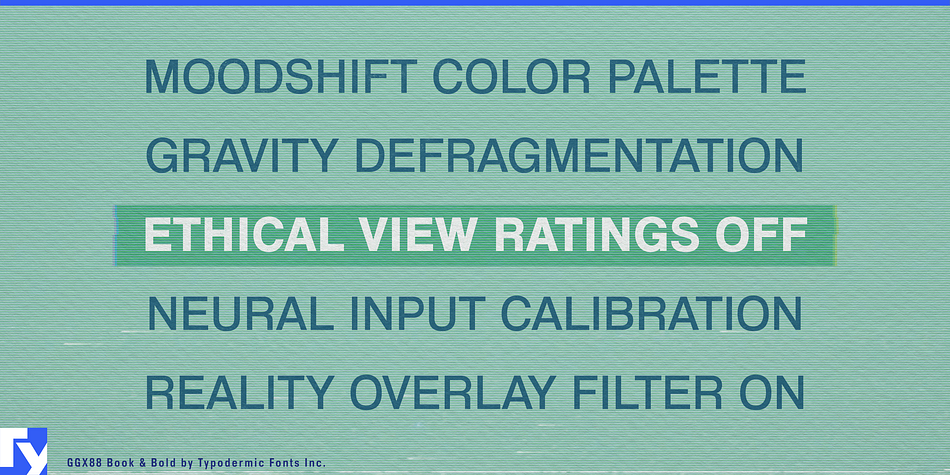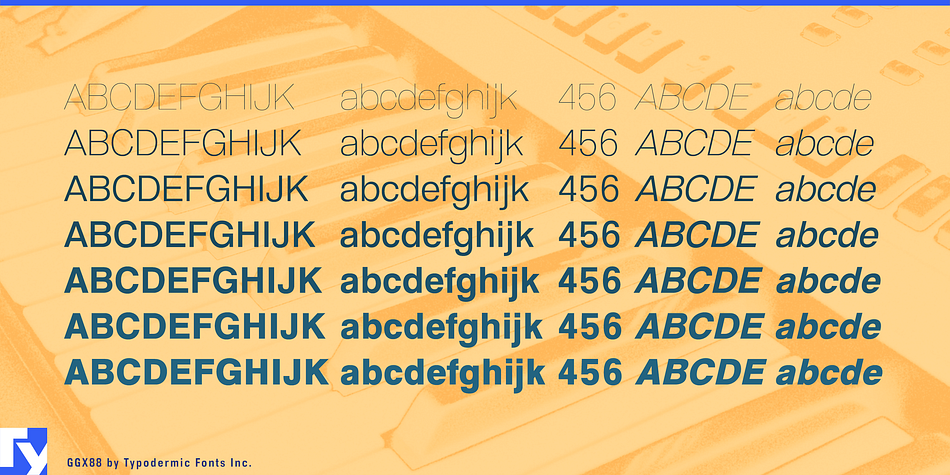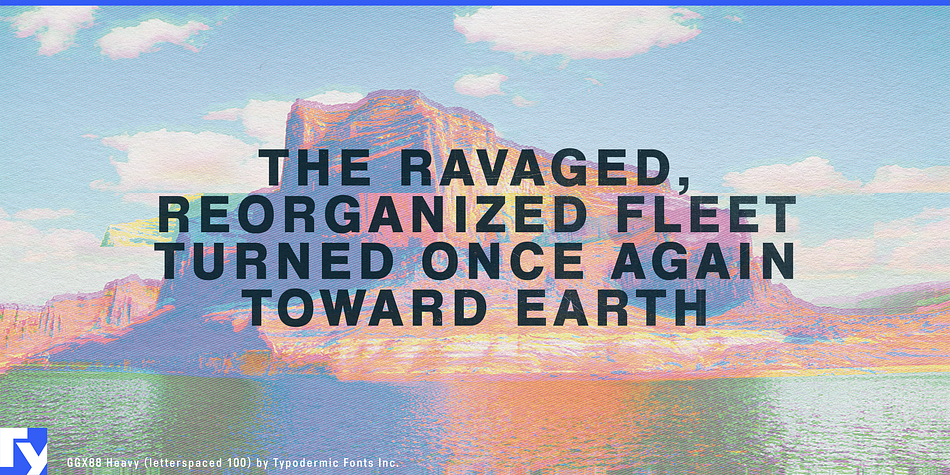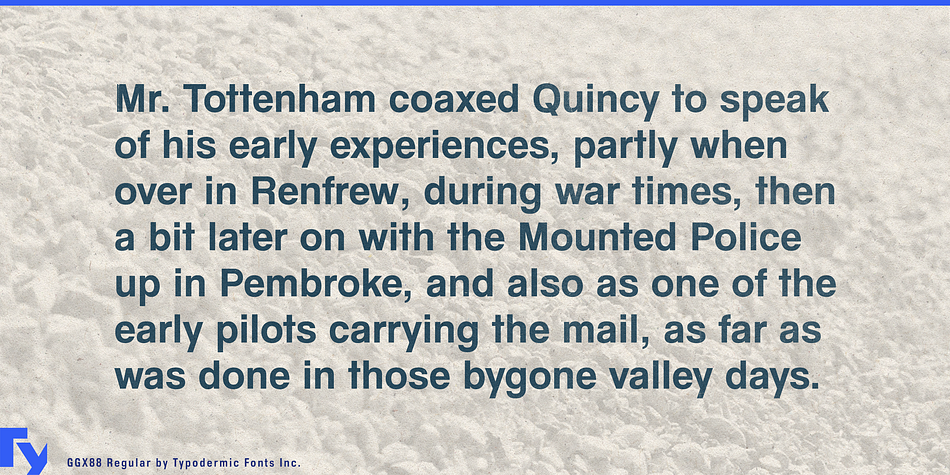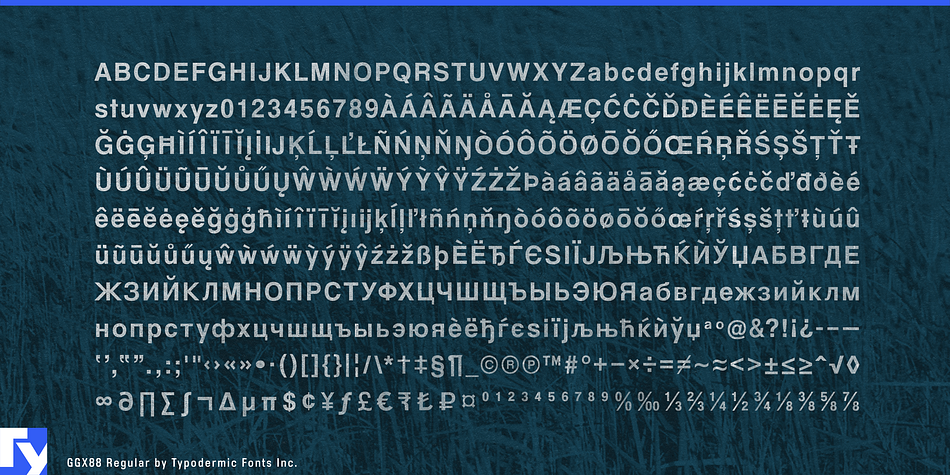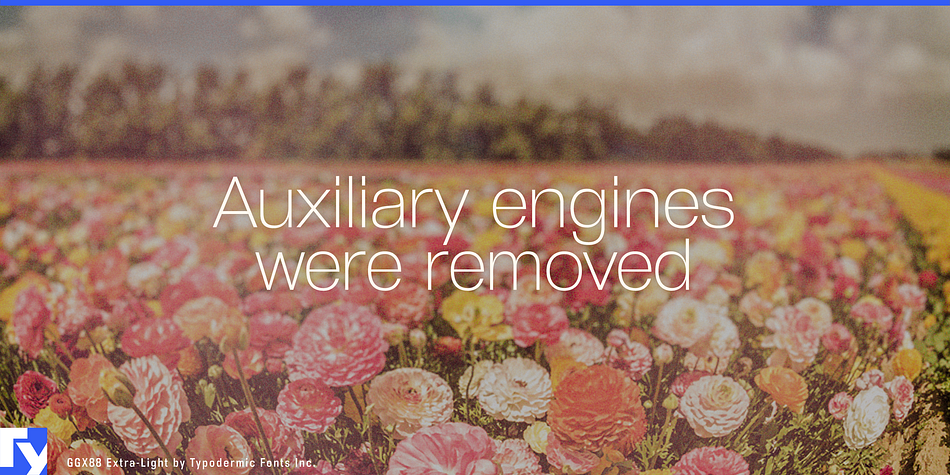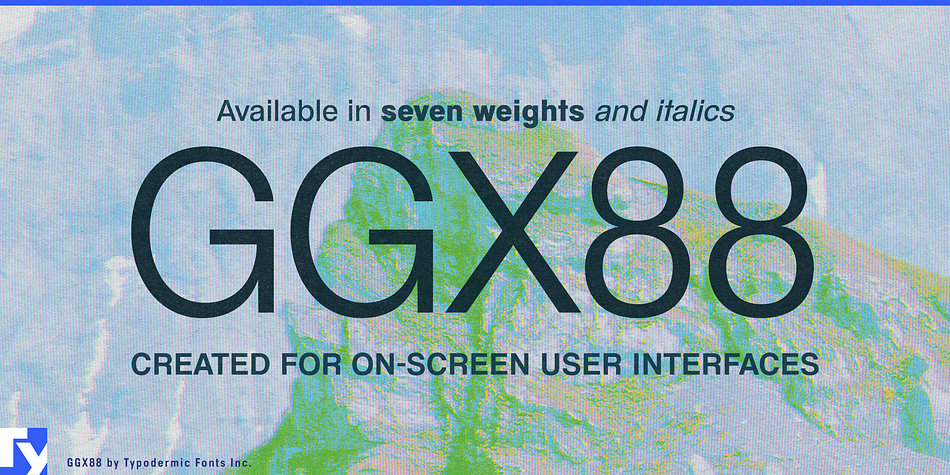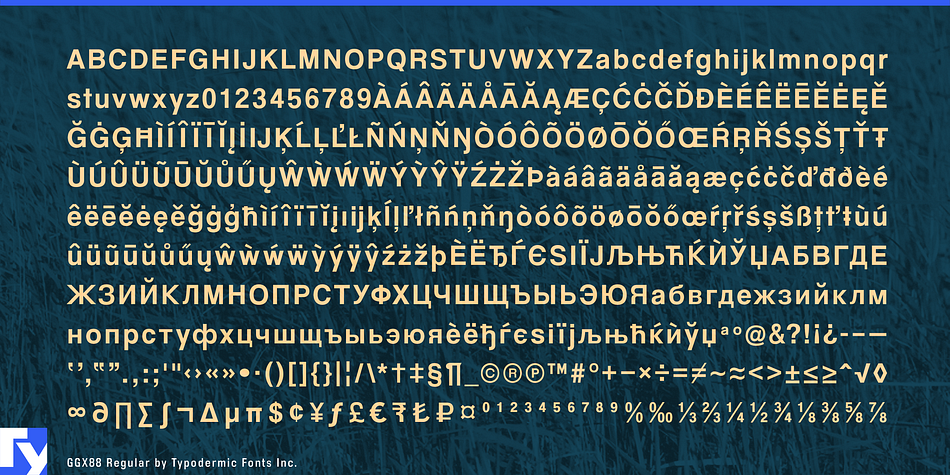
GGX88 is a sans serif font family. This typeface has fourteen styles and was published by Typodermic Fonts Inc.
GGX88 is a Swiss inspired sans-serif typeface, created and tested for on-screen user interfaces. GGX88 is available in seven weights and italics.